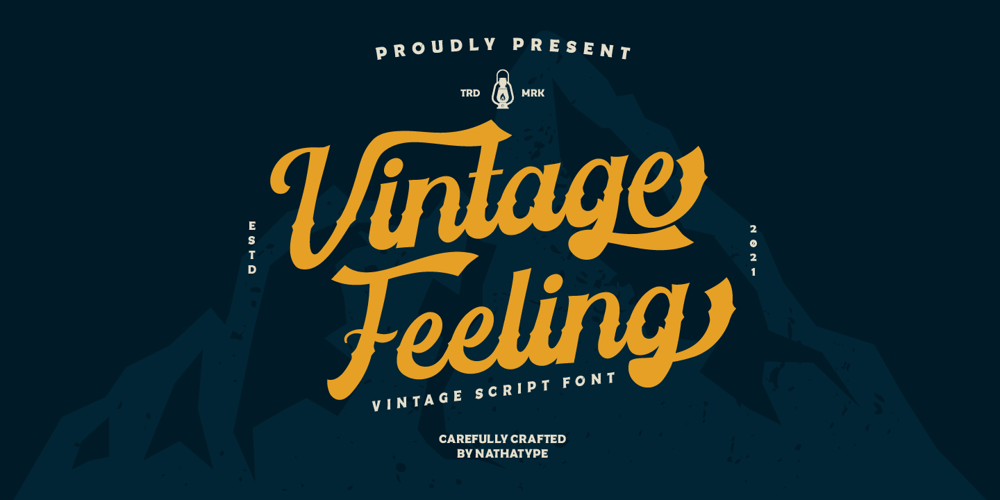
Vintage Feeling Font Family was designed by Donis Miftahudin and published by Nathatype. Vintage Feeling contains 1 styles and family package options. Looking for a font that’ll make your branding radiate elegance? Something that’s versatile, stylish, and eternal? Get ready to transcend to a world of magic, laughter, and butterflies. Your branding will spark delight and engage everyone who sees it! Vintage Feeling-A Script FontA beautifully script font that’ll make your guests sing and elevate your projects! Every stroke, and curve was created to entice happiness and elegance. Use it to create standout headings, promote your online sales, Instagram quotes, and even printed materials like business cards, t-shirts, or invitations. Vintage Feeling includes Multilingual Options to make your branding globally acceptable. Features: Alternates Ligatures Stylistic Sets Bonus Ornament PUA Encoded Numerals and Punctuation Thank you for downloading premium fonts from Nathatype